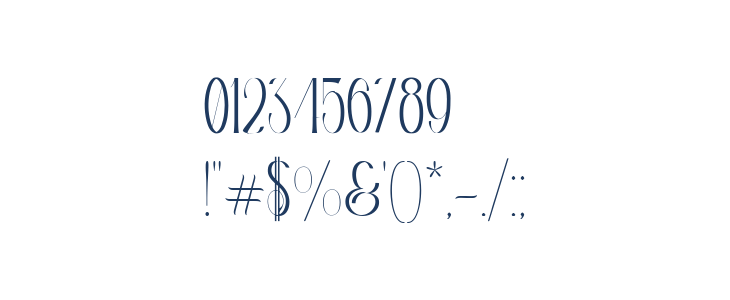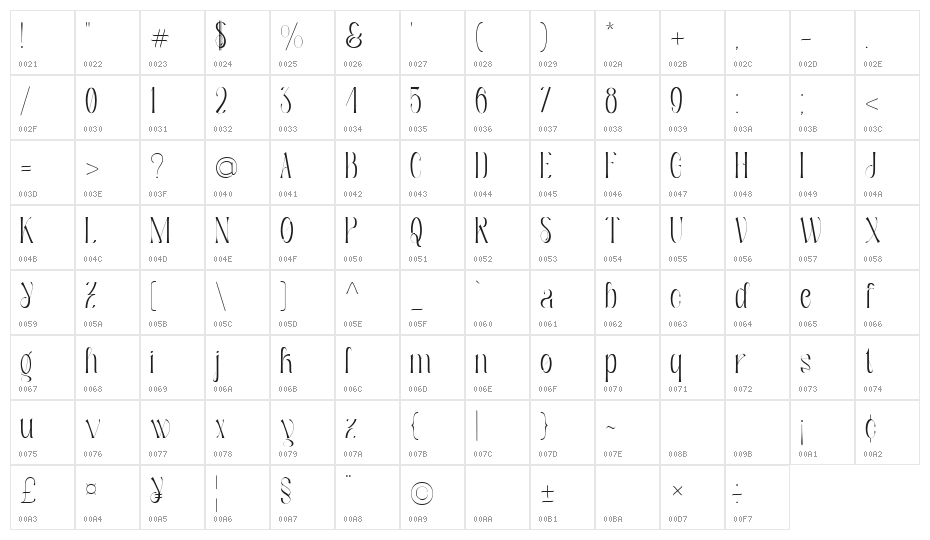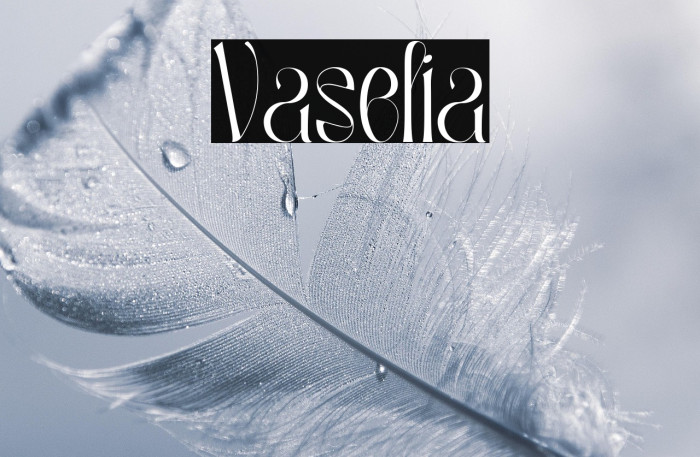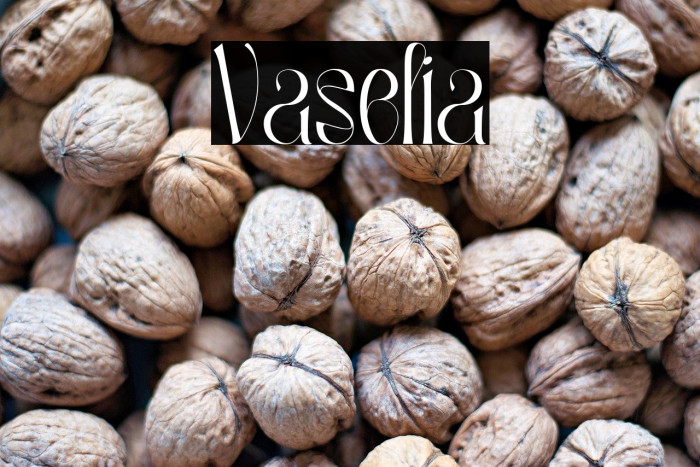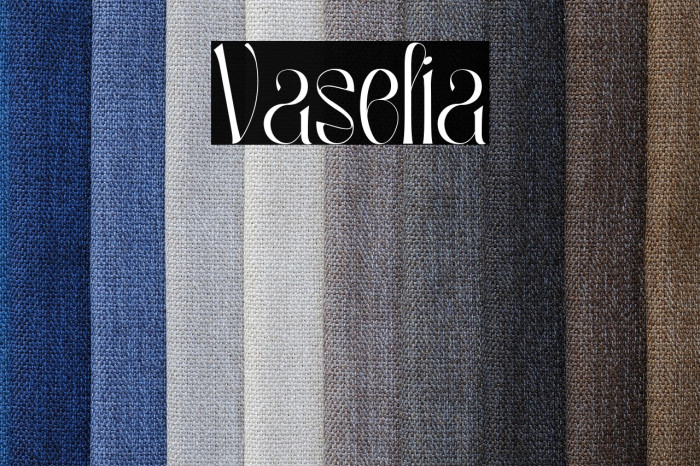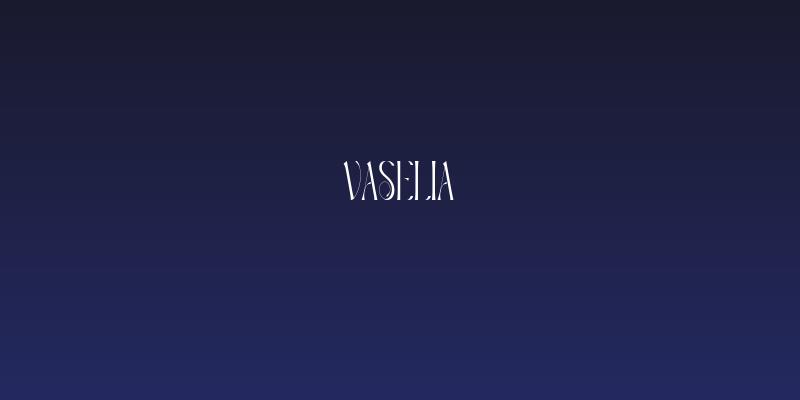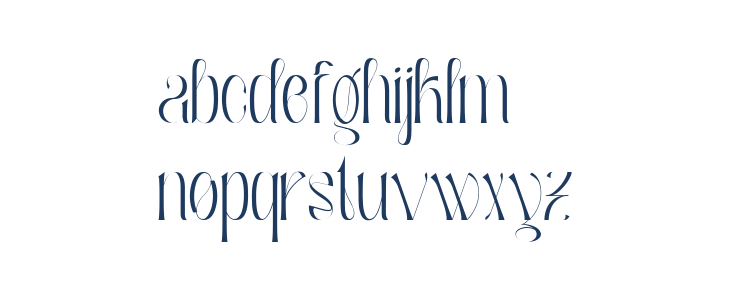
Vaselia Font
Vaselia Description
This font features a unique blend of elegance and modernity, characterized by its tall, slender letterforms with high contrast between thick and thin strokes. The uppercase letters exhibit a sophisticated flair with subtle curves and sharp edges, while the lowercase letters maintain a consistent style with a slightly more playful touch. The numerals are distinct and stylish, complementing the overall aesthetic. Special characters are designed with the same attention to detail, adding to the font's versatility. Its artistic design makes it suitable for creative projects that require a touch of sophistication.
| Overall Style | Elegant and modern |
| Proposed Projects | Ideal for luxury branding, fashion magazines, wedding invitations, and high-end product packaging. |